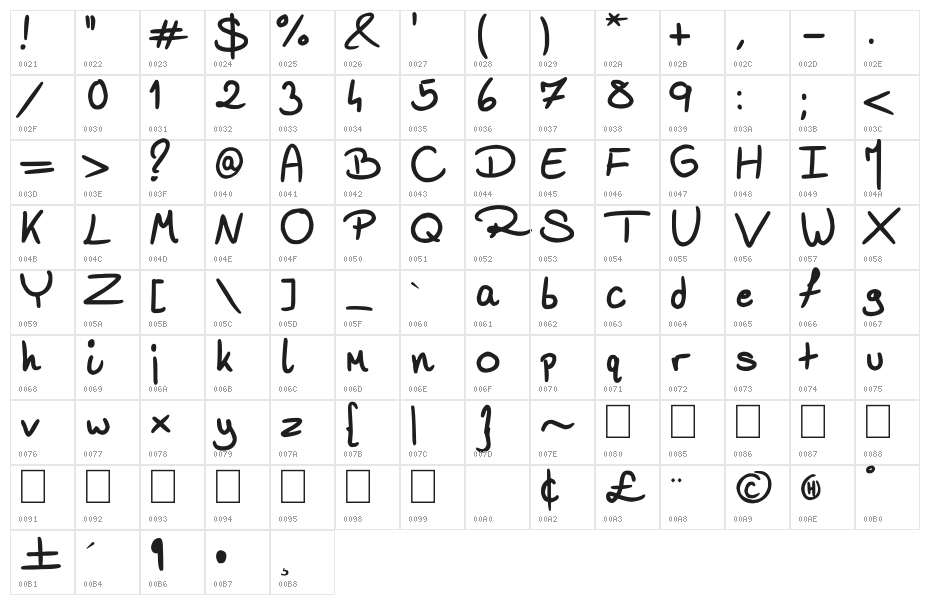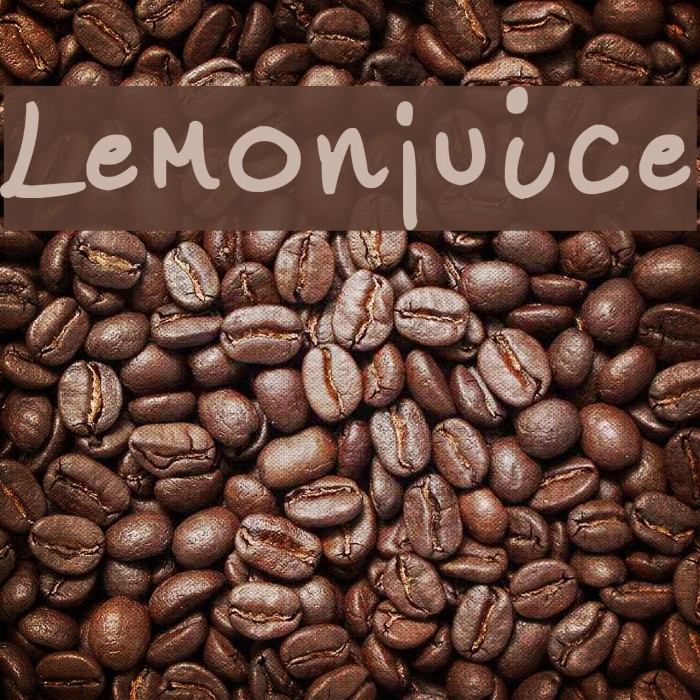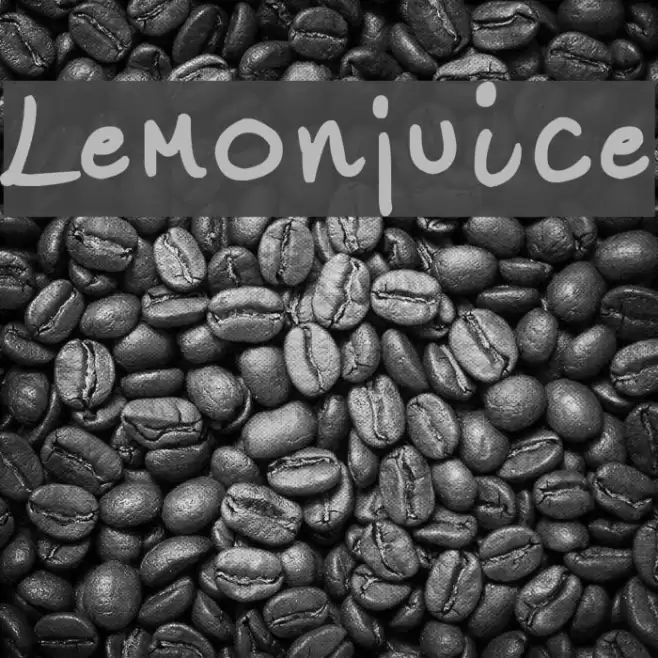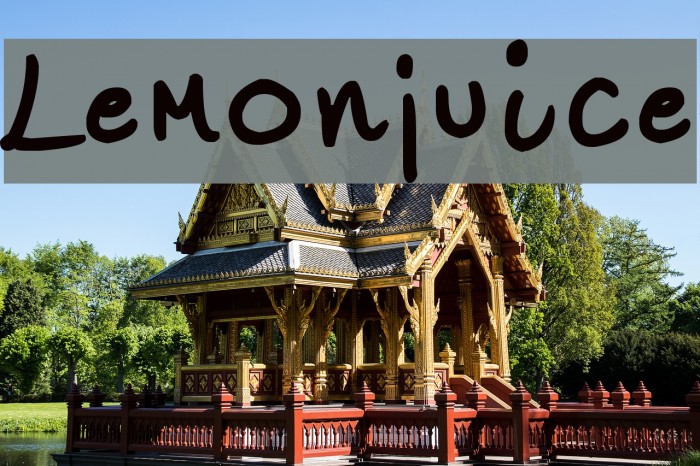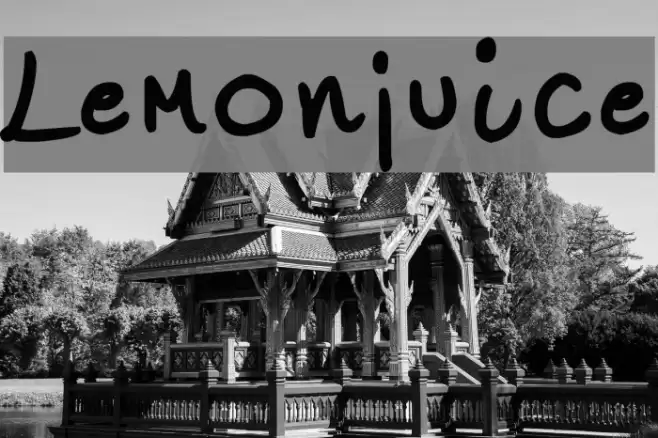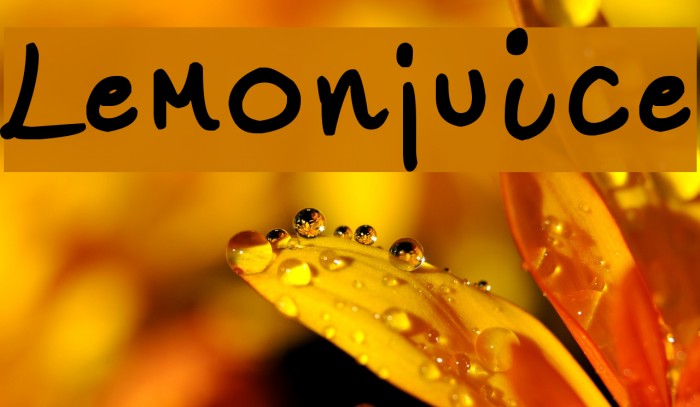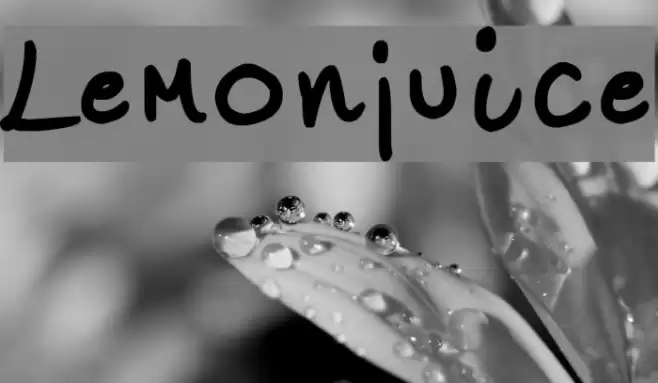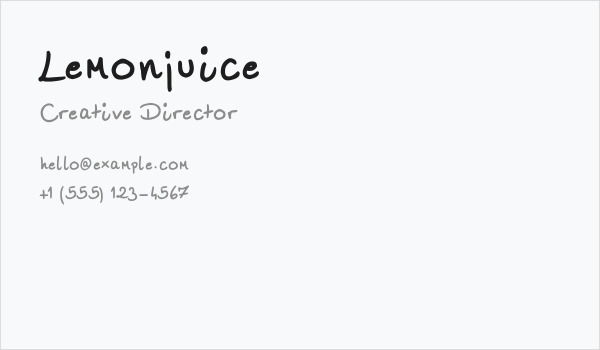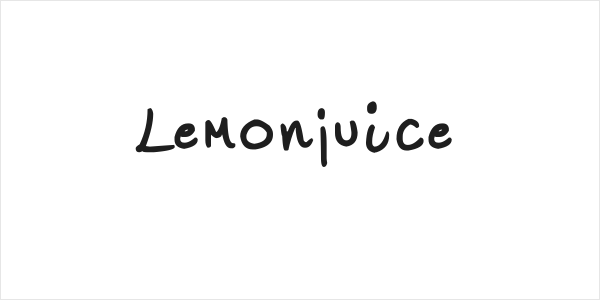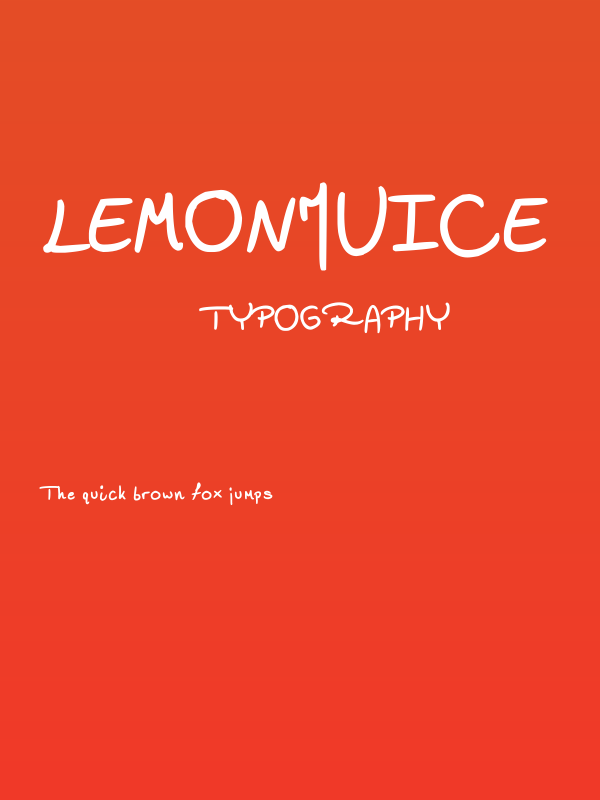
Lemonjuice Font
Lemonjuice Description
This playful and energetic font features a handwritten style with a casual, informal appearance. The letters are bold and slightly irregular, giving them a lively and dynamic feel. The strokes are thick and rounded, adding to the font's approachable and friendly character. The uppercase and lowercase letters maintain a consistent style, with a slight slant that enhances the handwritten effect. The numbers and special characters are equally expressive, making this font versatile for various creative projects.